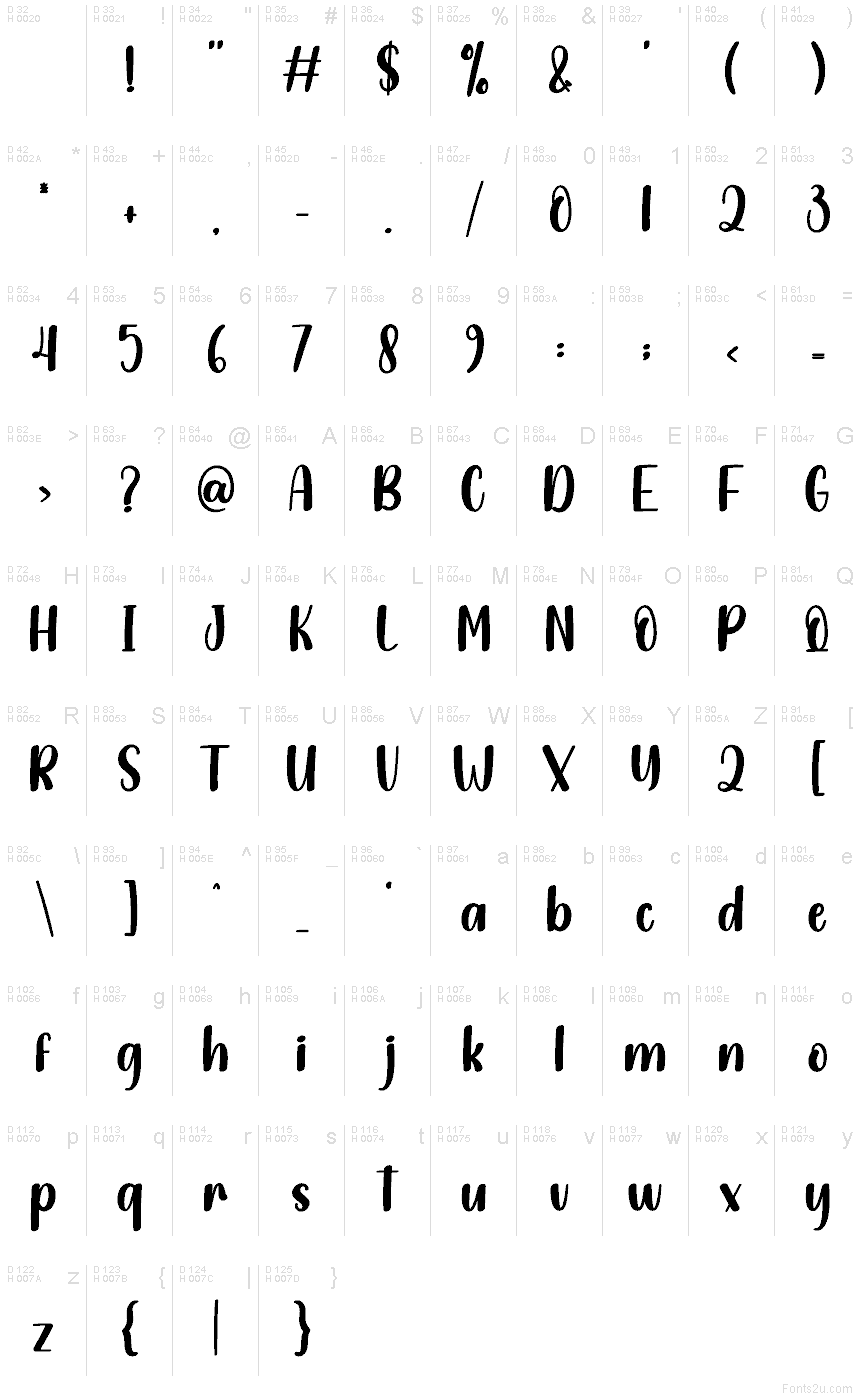
Winter Snowhite
Winter Snowhite font by Scratchones is a stylish brush font in bold weight for added stroke thickness. Contemporary and elegant, it has smooth forms and defined edges that achieve high readability. Wrapped in modern flair, its overall vibe is chic, expressive, and playful.
Winter Snowhite, a free brush font, can be used in advertisement posters for movies or products. It can spice up the brand logo design and embroidered t-shirt designs or add accents to furniture pieces. Other uses include restaurant menus (food section headings), art paintings (signature) book covers (cover subheading) album covers (band’s name).